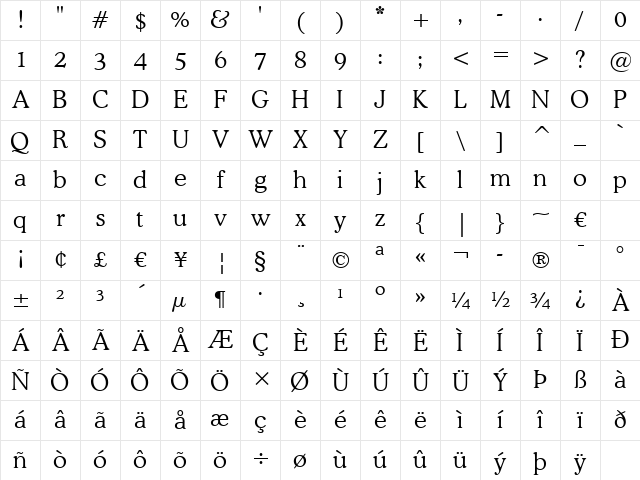
Cooper Lt BT Light
Cooper Lt BT Family
Cooper Lt BT Light
Complete Cooper Lt BT Light glyph index. Displaying only characters natively supported by Cooper Lt BT Light font.
Design Context for Cooper Lt BT
Cooper Lt BT is a composed and adaptable typeface that performs quietly and consistently across a wide range of design contexts. Its slender proportions lend an understated elegance to any composition.